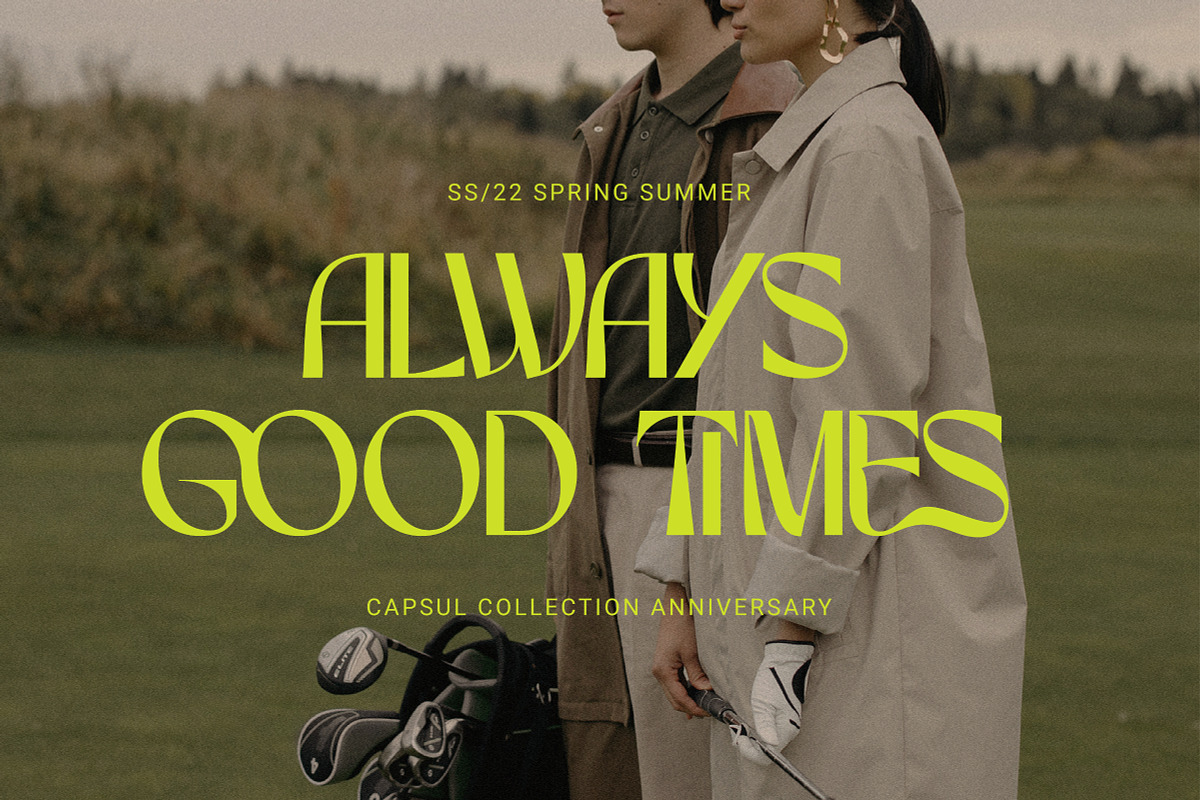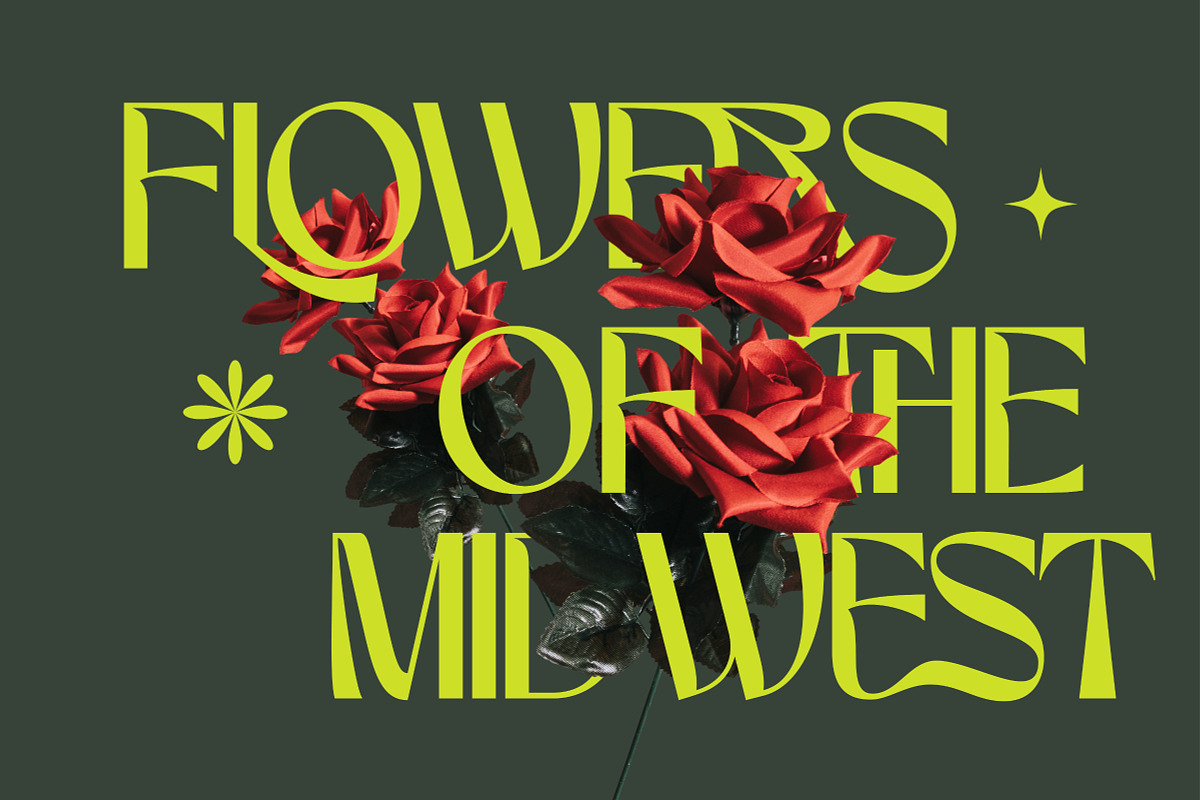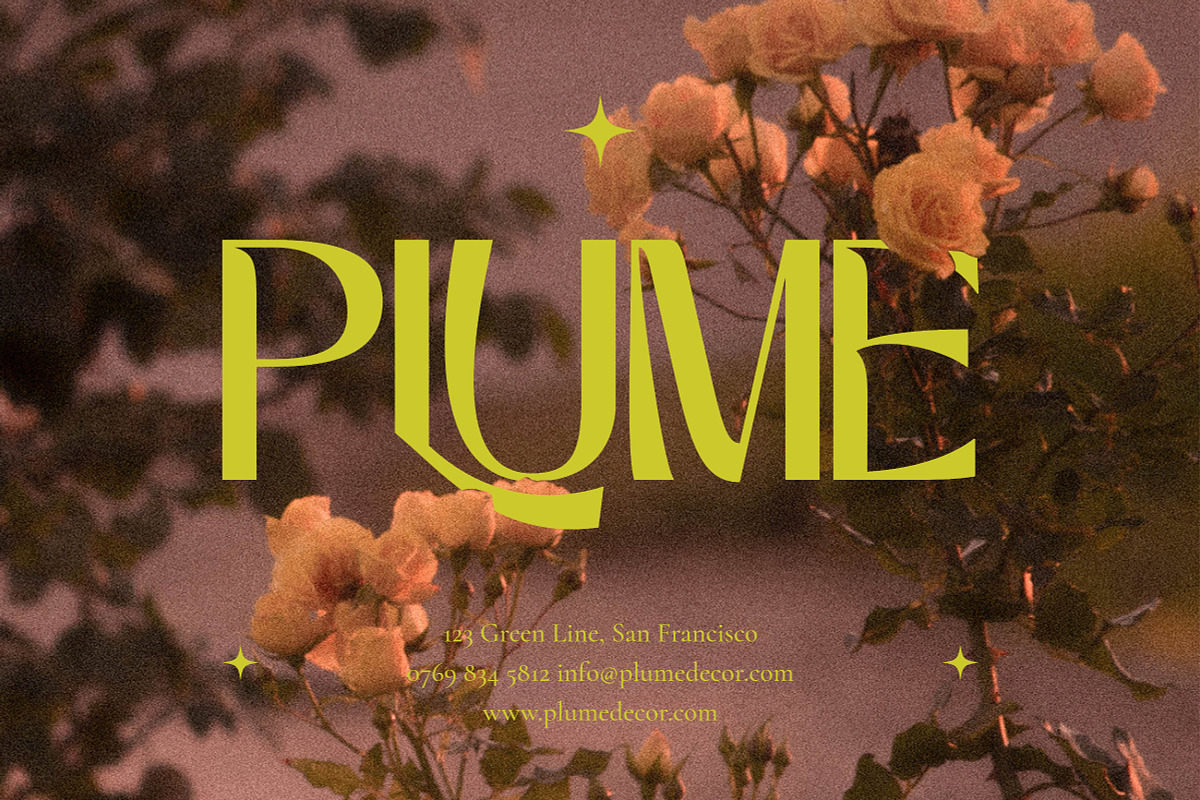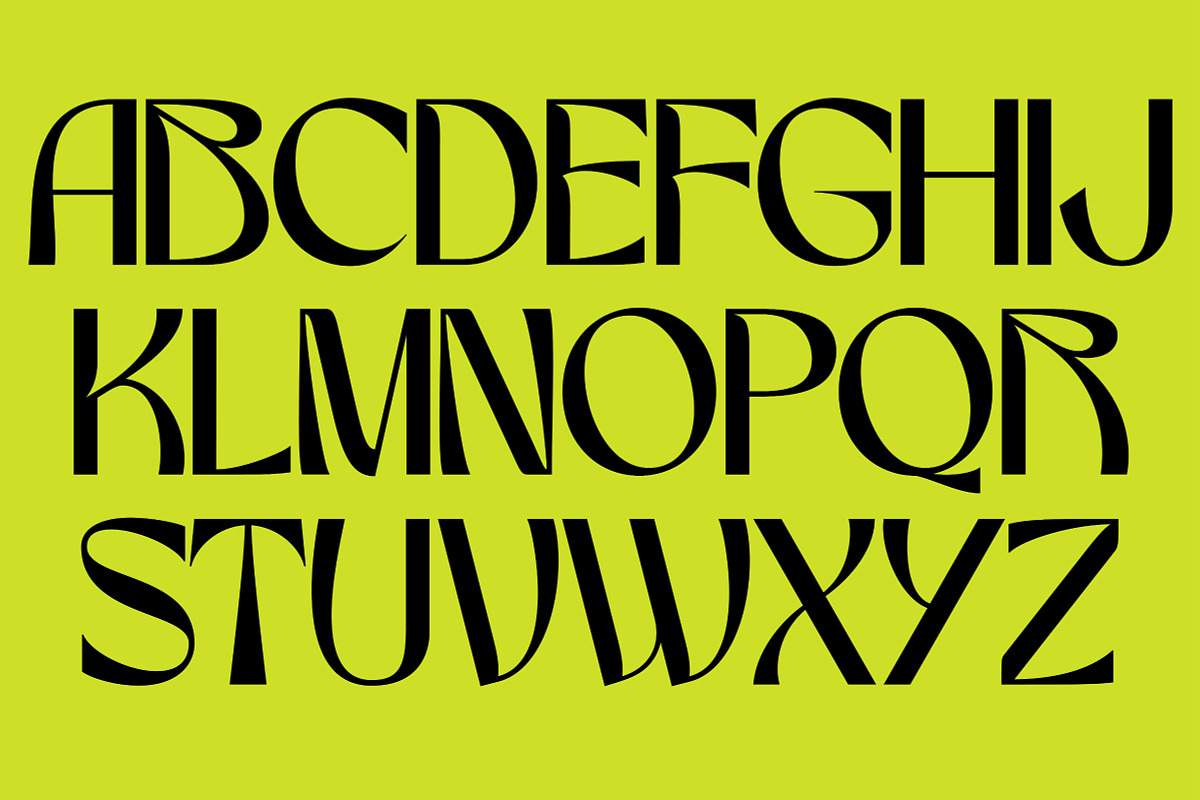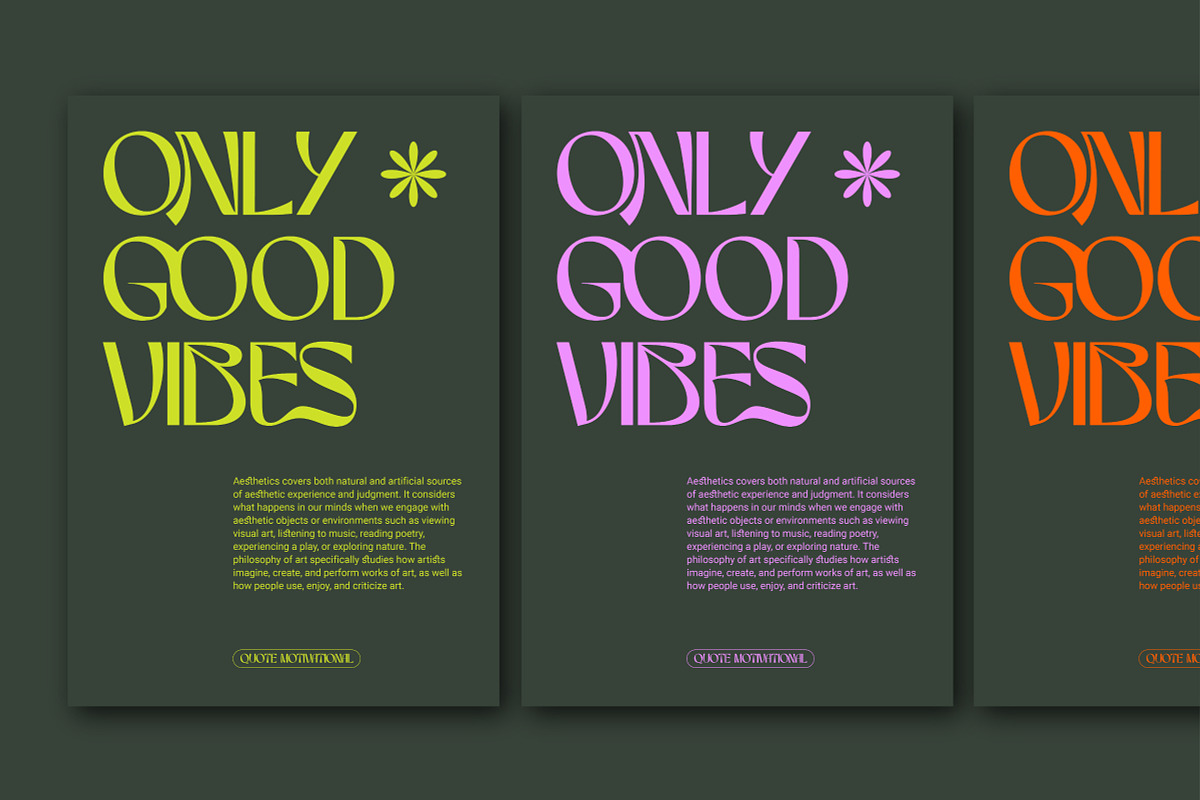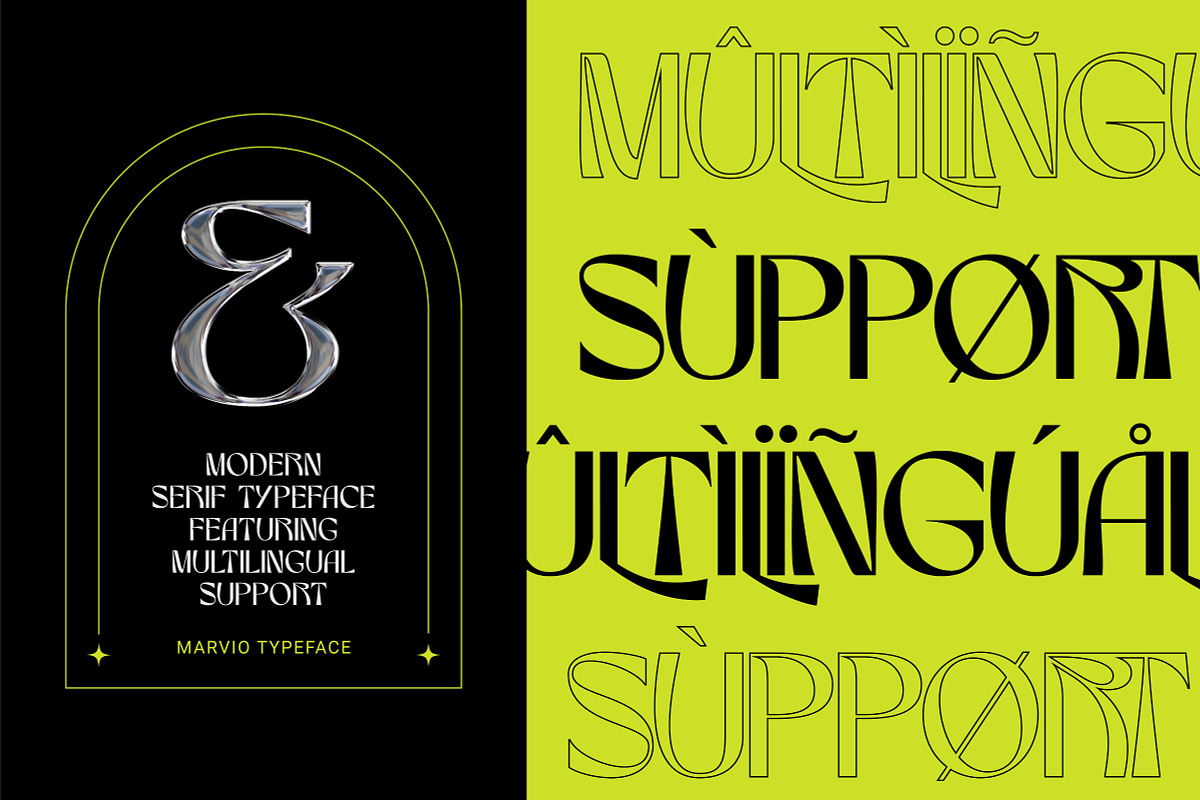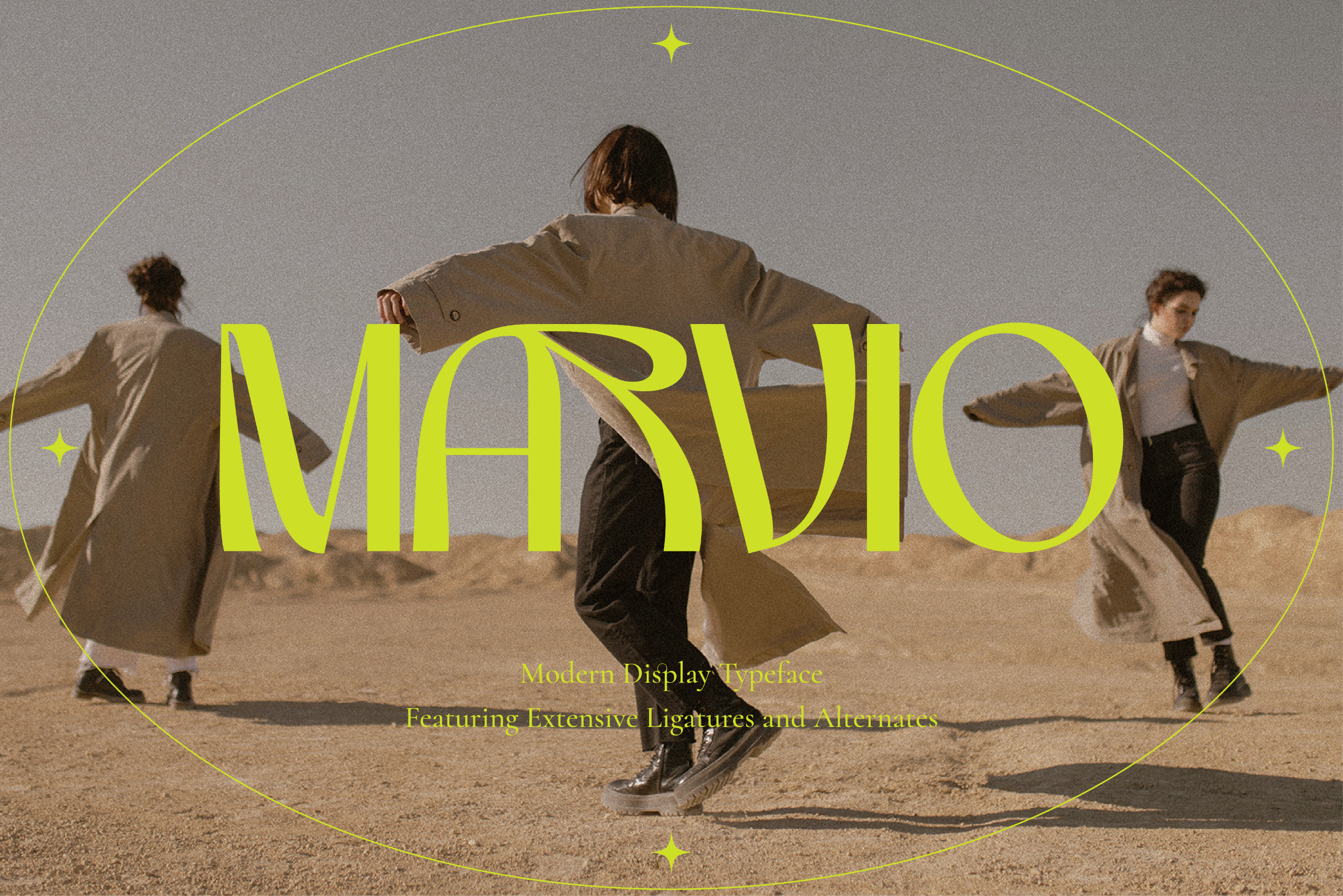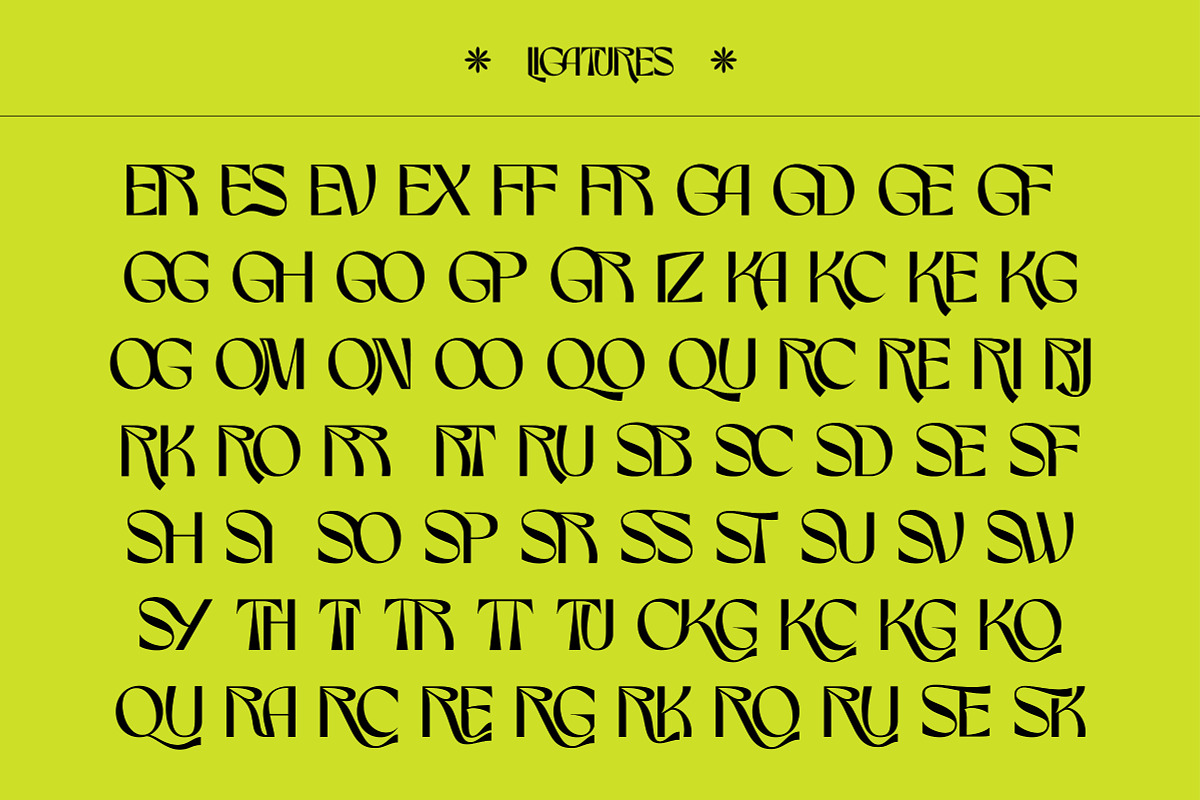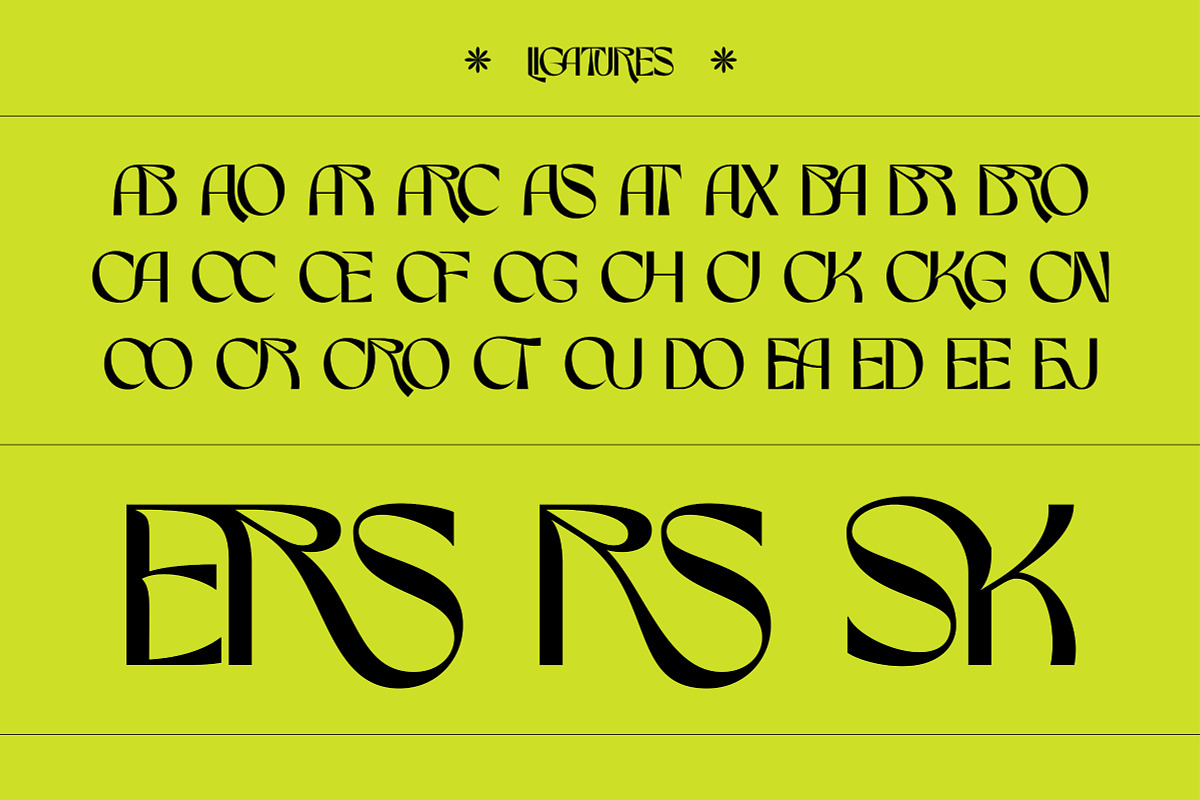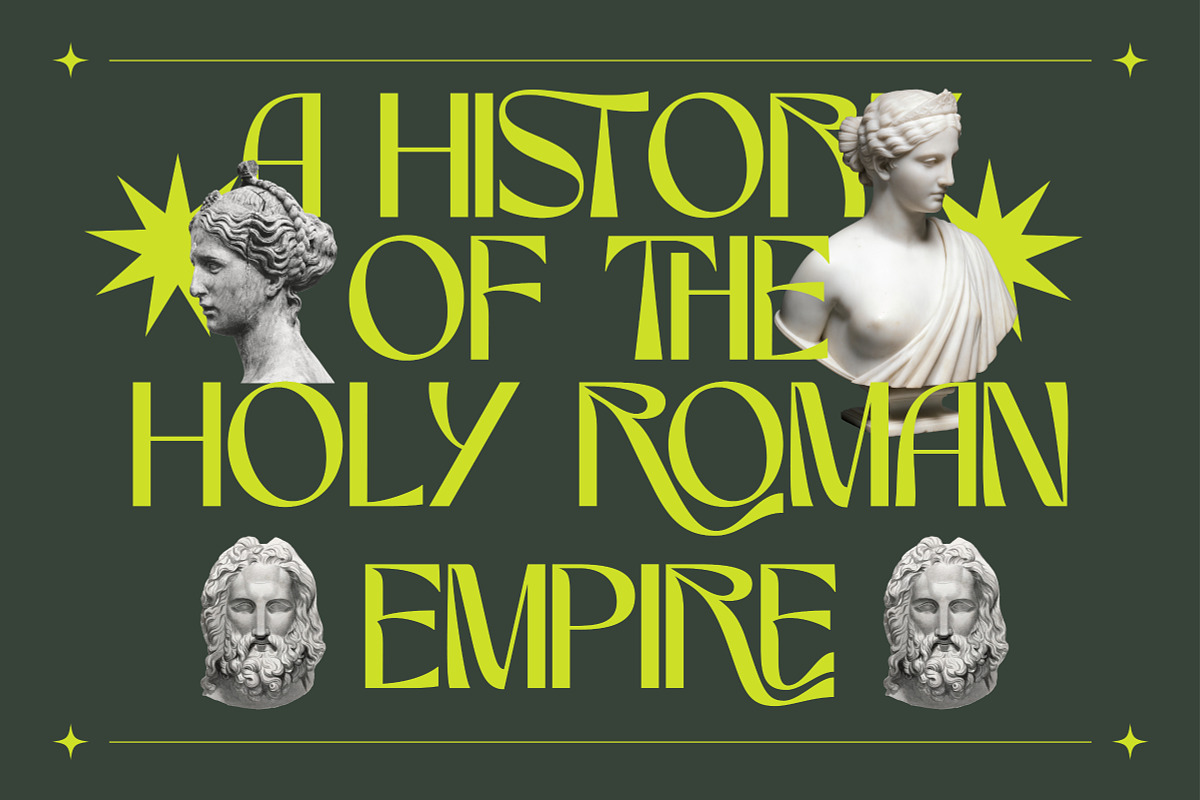
Marvio - Modern Display Typeface
Marvio is a super unique modern display typeface that features all uppercase characters and standout features such as selective ink traps, slight serifs, extra tall legs & exaggerated bowls.
Combined together we’ve provided an outstanding set of ligatures to help you further customize your designs. Multilingual characters are also included.